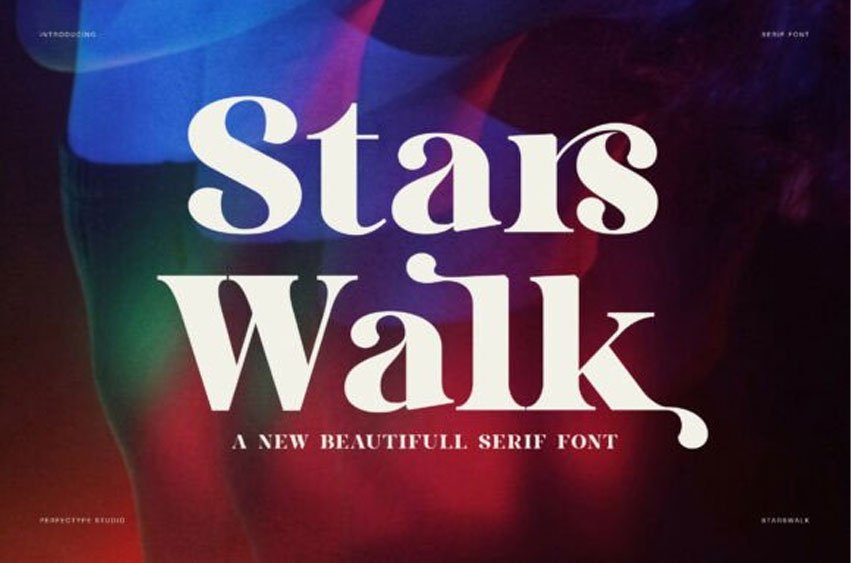
Stars Walk Font Elegant Serif Display Font is a refined typeface created to express beauty, confidence, and timeless style. From the first glance, this font delivers a warm and luxurious presence. Therefore, it becomes an excellent choice for designers who want their work to feel premium, emotional, and memorable.
Stars Walk blends classic serif structure with soft curves and artistic ligatures. As a result, every letter feels graceful yet strong. The contrast between thick and thin strokes adds elegance, while the smooth terminals maintain excellent readability. Moreover, the decorative swashes bring a modern editorial touch without overwhelming the design.